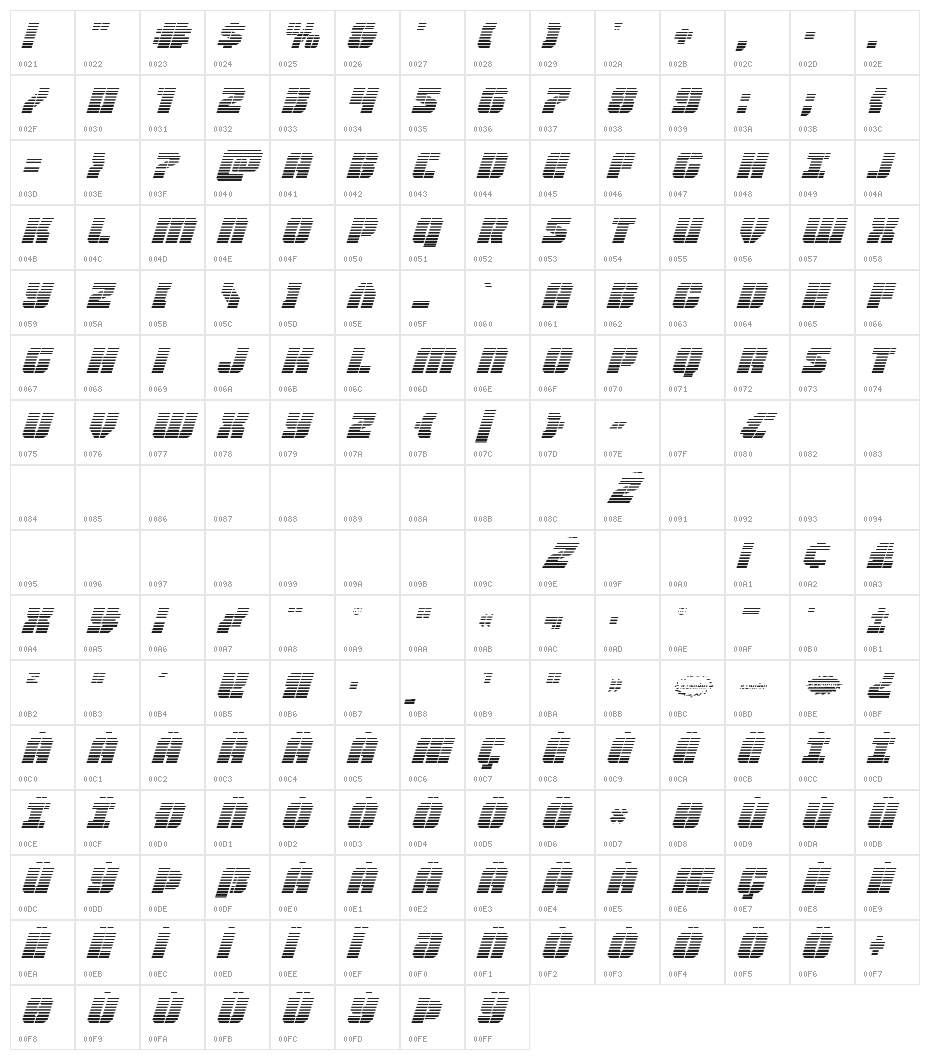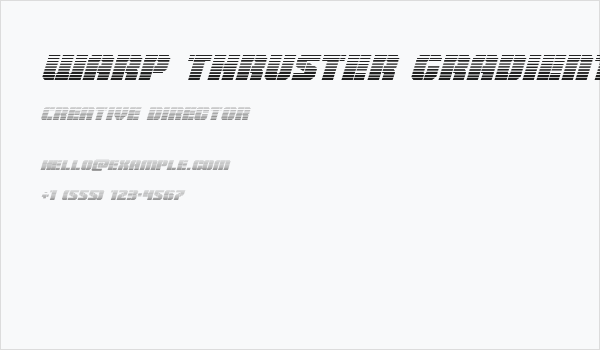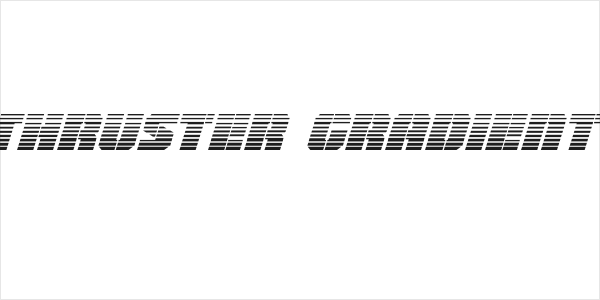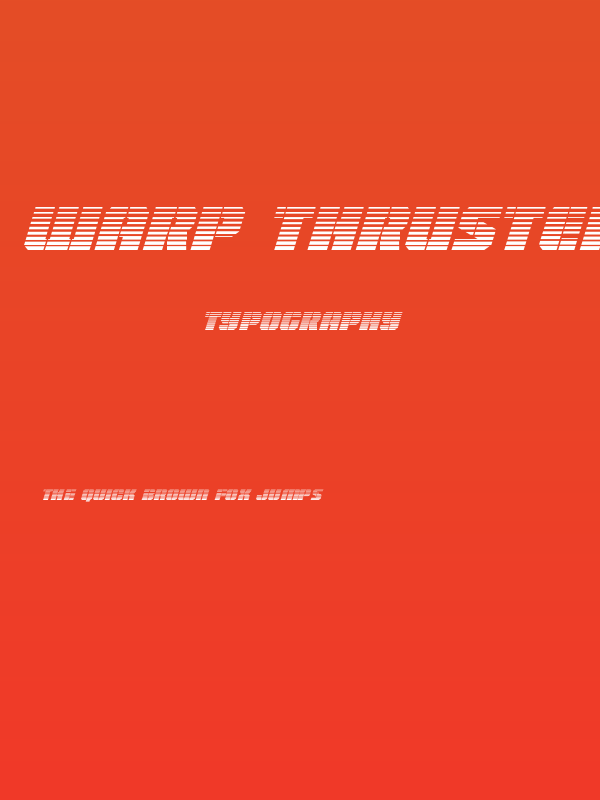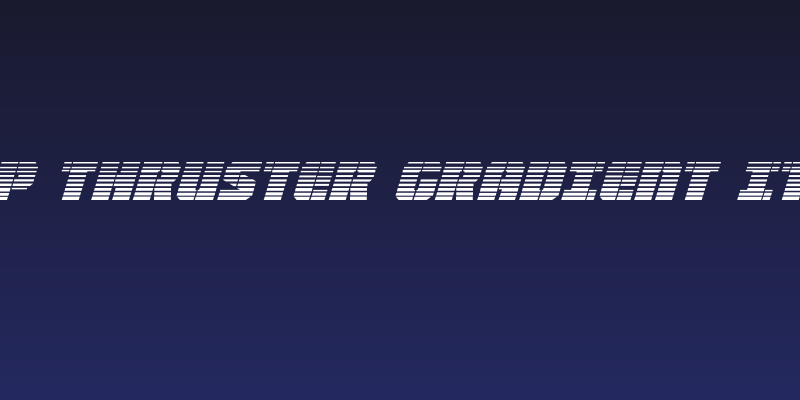
Warp Thruster Gradient Italic Font
Warp Thruster Gradient Italic Description
This font features a futuristic and dynamic design, characterized by its italicized and gradient-striped appearance. Each character is composed of horizontal lines that create a sense of motion and speed, making it ideal for projects that require a modern and energetic feel. The uppercase and lowercase letters, as well as numbers and special characters, maintain a consistent style that emphasizes a sleek and streamlined look. The font's unique structure is perfect for capturing attention and conveying a sense of innovation and forward-thinking.
| Proposed Projects | Ideal for sci-fi themed designs, technology branding, video game titles, and dynamic posters. |